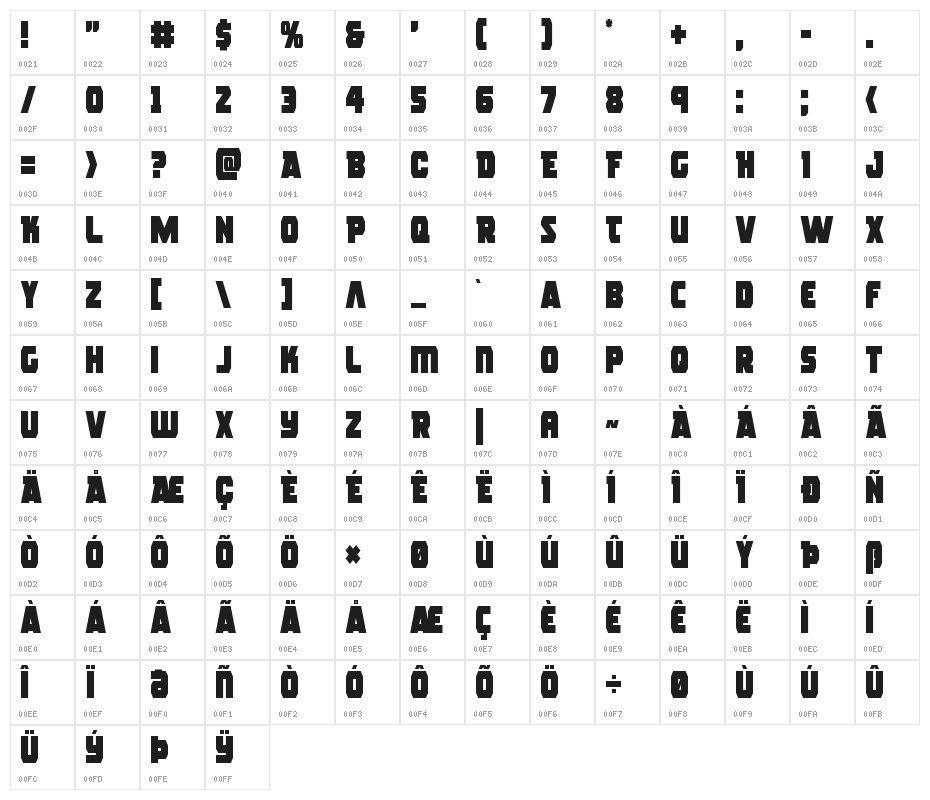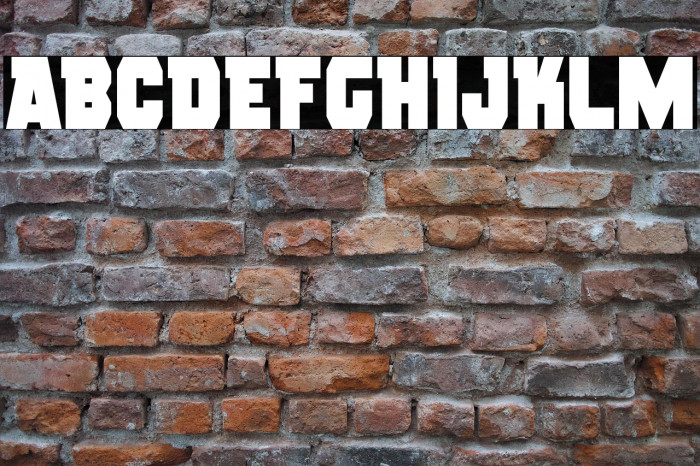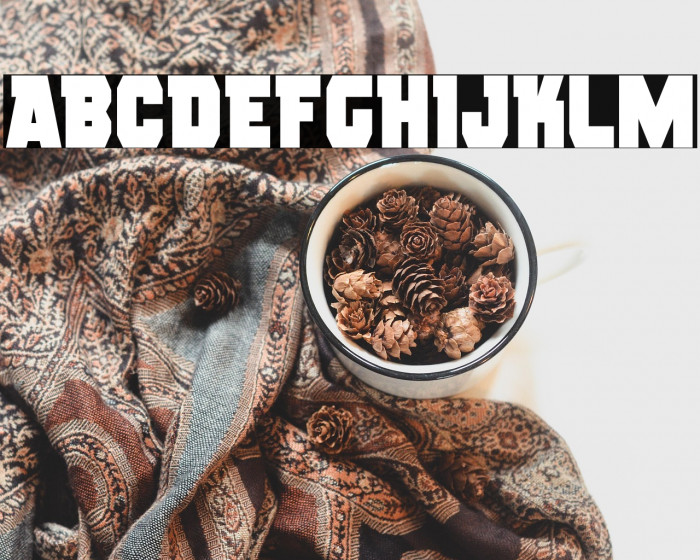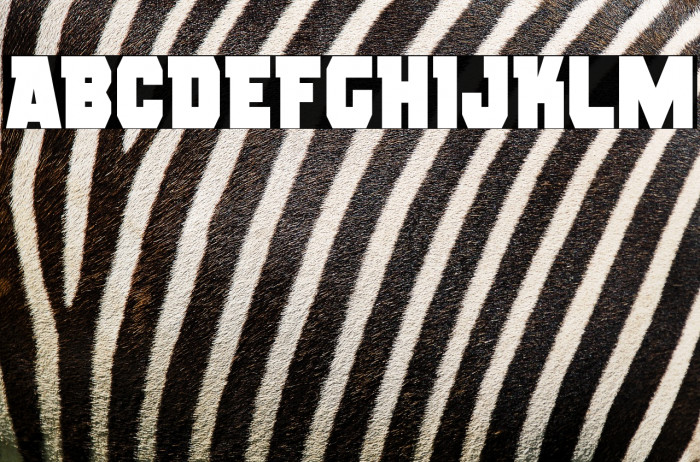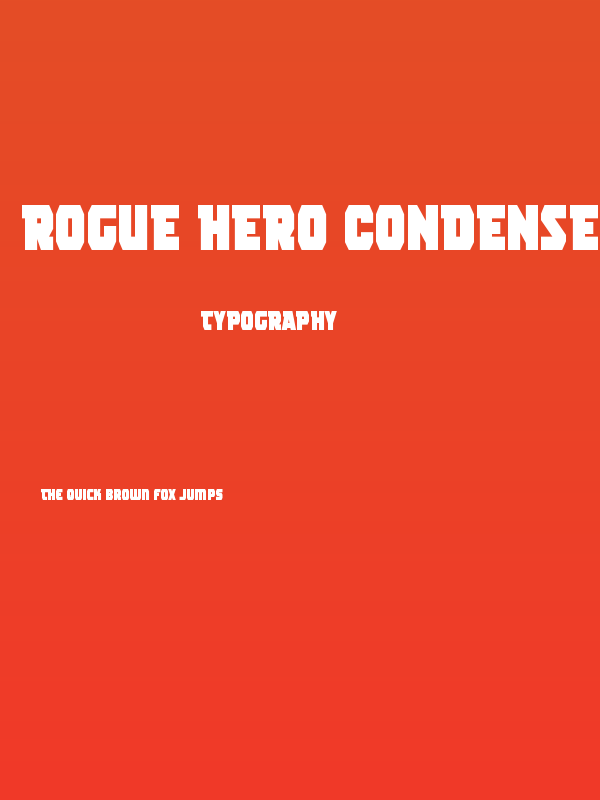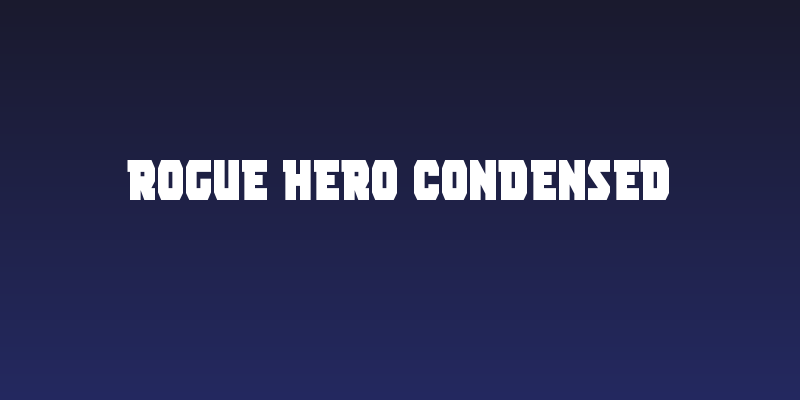
Rogue Hero Condensed Font
Rogue Hero Condensed Description
This font features a bold, geometric design with a distinctly condensed structure. The characters are blocky and robust, with sharp angles and a strong presence. The uppercase and lowercase letters maintain a consistent height, contributing to a uniform appearance. The numbers and special characters are equally bold, ensuring they stand out in any context. The overall style is modern and assertive, making it ideal for impactful designs.
| Proposed Projects | Ideal for posters, headlines, logos, and branding materials that require a strong visual impact. |